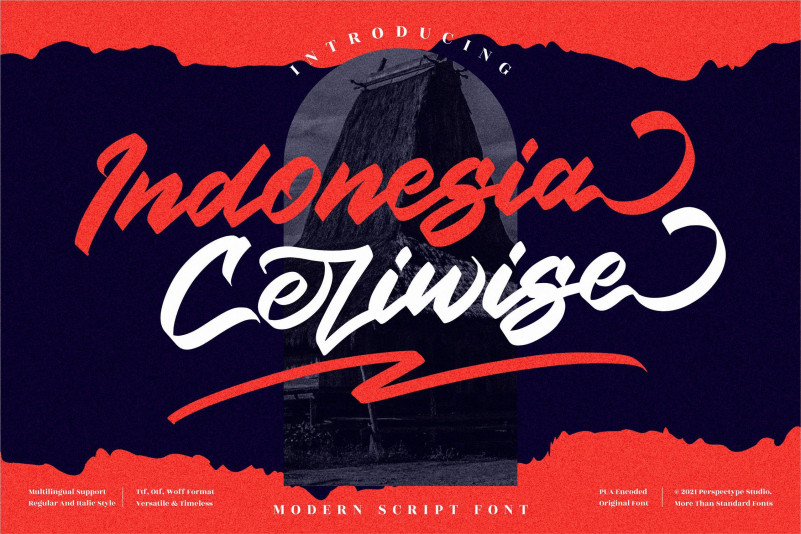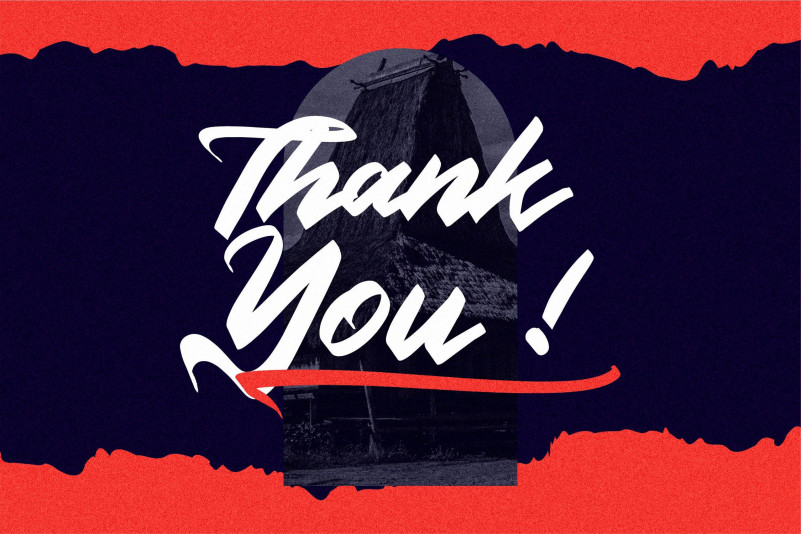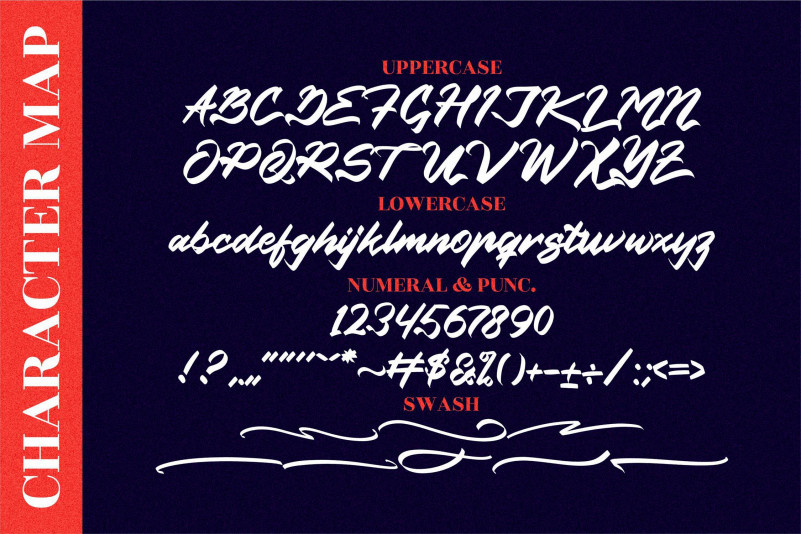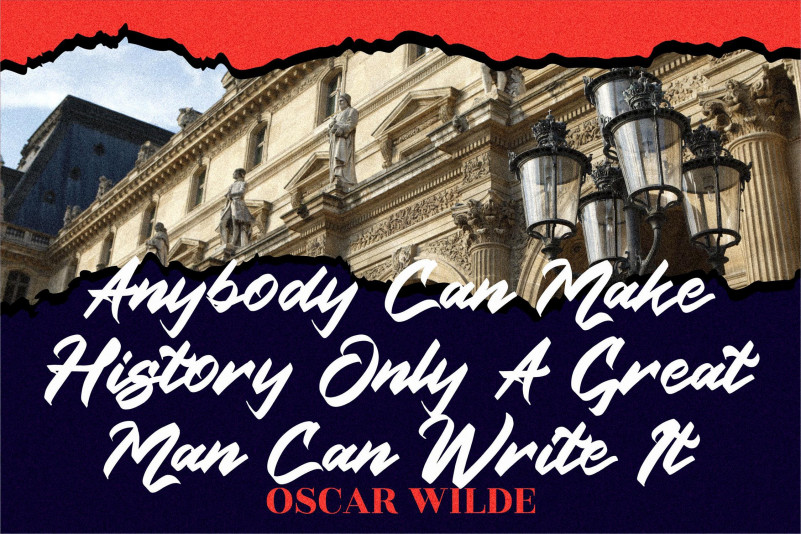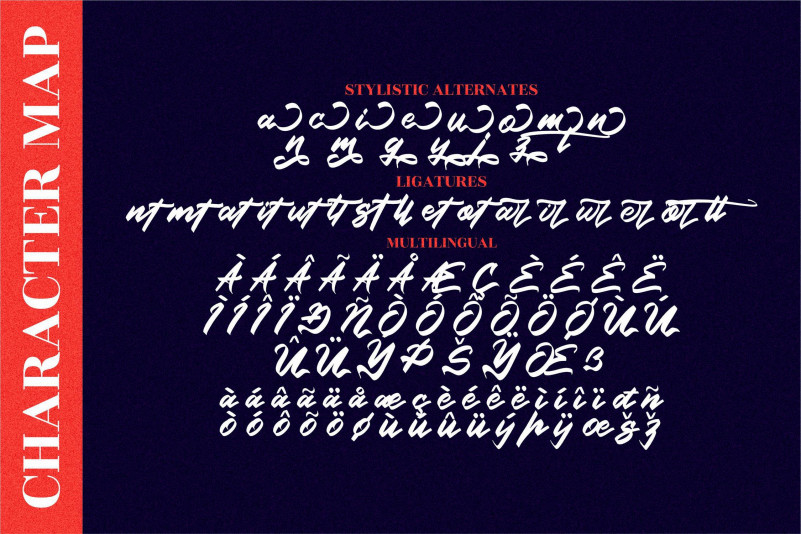
Indonesia Ceriwise Font
Indonesia Ceriwise Script Font
This is a readable, down to earth, and bold handwritten font, crafted to give your headlines and logotype projects a cool touch. This font reads as strong, confident, and dynamic and can add tons of nostalgic character to your designs.